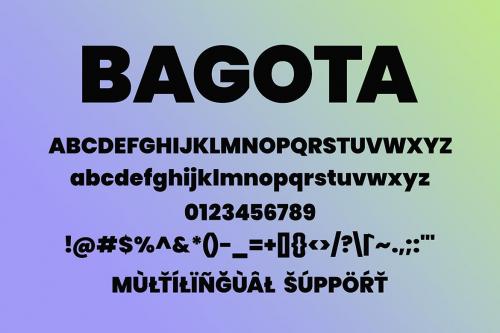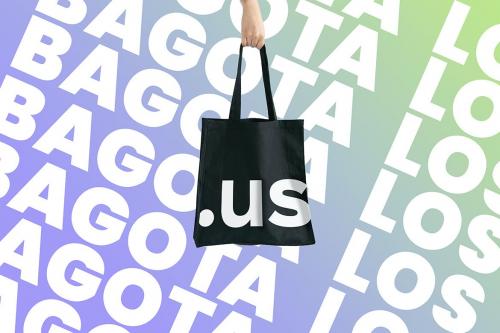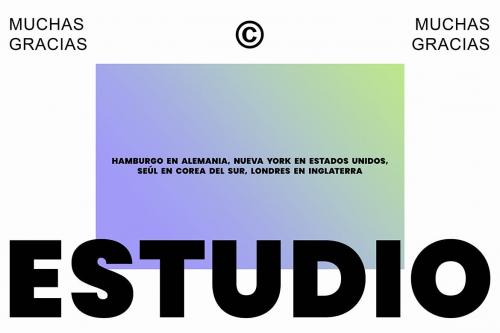
巴戈塔·洛斯 - 超级斜体字体
Bagota Los - Sans Serif Font
Introducing **Bagota Los**, a simple and sans serif font.
**Features**
+ Uppercase
+ Lowercase
+ Punctuation
+ Numerals
+ Multilingual Support